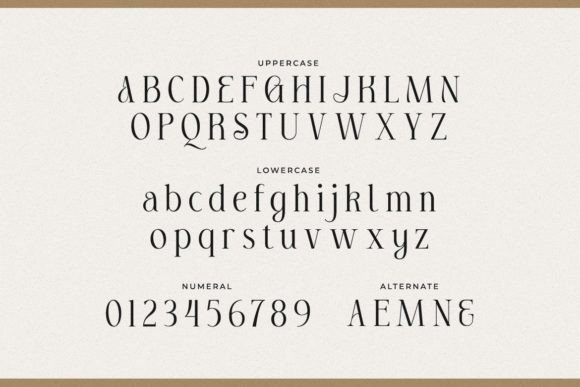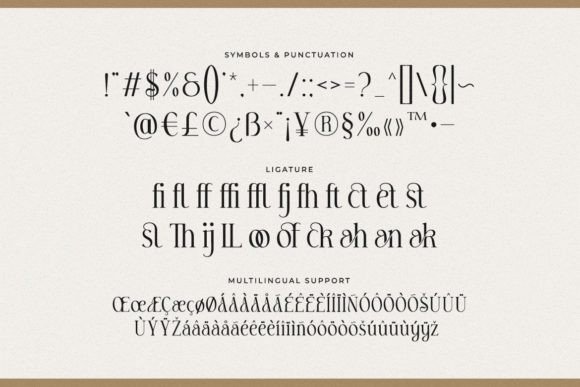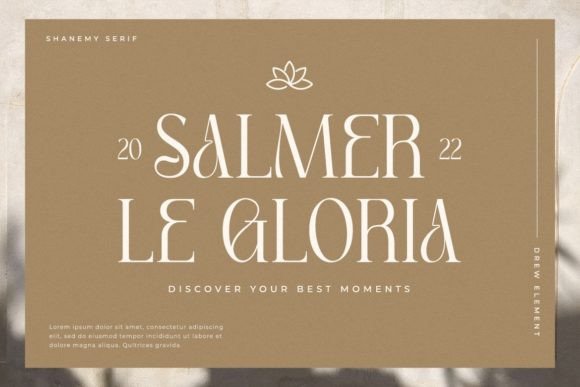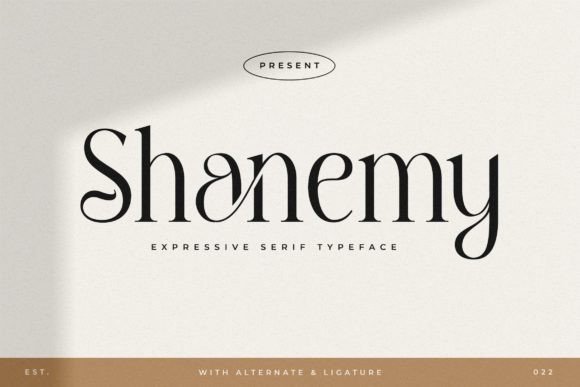
Introduction to Shanemy Font
Shanemy is an expressive serif font.
This serif font will be the ideal choice for any cool project or great design you wish to develop This font is PUA encoded which means you can access all of the amazing glyphs and ligatures with ease.
Key Features of Shanemy Font